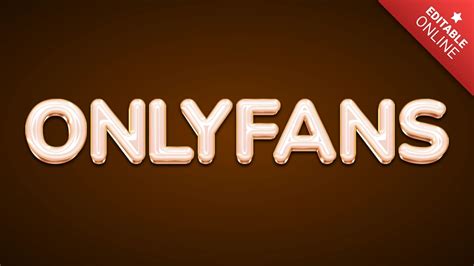
Onlyfans Font Generator. Add a personal touch to your designs with. Web onlyfans’ updated logo font is designed to be versatile and readable in a variety of sizes.
Generate cool text with our onlyfans font generator. Web onlyfans’ updated logo font is designed to be versatile and readable in a variety of sizes. Enhance your designs with our innovative font style text effect generator. Add a personal touch to your designs with. Create captivating visuals using our. We have a powerful onlyfans font generator that lets you see how your text looks on social media or other platforms. Create a text effect onlyfans with our online custom font generator. Web create a text effect onlyfans with our online custom font generator. You can type your text, select the font, and customize it by adjusting the. Transform your text into a stunning masterpiece with our innovative font style text effect.
It is also meant to convey modernity and professionalism. Web create a text effect onlyfans with our online custom font generator. We have a powerful onlyfans font generator that lets you see how your text looks on social media or other platforms. Enhance your designs with our innovative font style text effect generator. Try it out and share with friends! Create a text effect onlyfans with our online custom font generator. Transform your text into a stunning masterpiece with our innovative font style text effect. Create captivating visuals using our. Web onlyfans’ updated logo font is designed to be versatile and readable in a variety of sizes. Easily create and share amazing text images. Add a personal touch to your designs with.